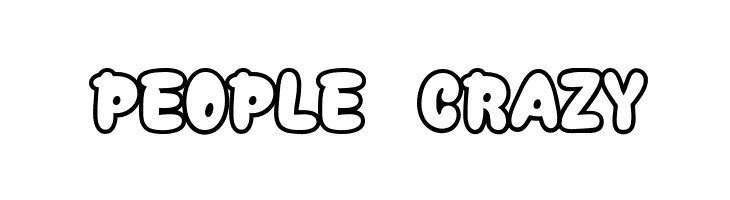
A modern, rounded font with smooth edges and high legibility.
Raider Crusader Expanded Font
Måns Grebäck
Guthen Bloots Personal Use Font
Måns Grebäck
A bold, energetic handwritten font with fluid strokes and a playful style.
DK Bygone Regular Font
Casady & Greene
A bold, hand-painted style font with a vintage, rugged appearance.
H4 Ketan Font Regular Font
Måns Grebäck
A bold, outlined font with a modern, geometric style.
.VnBook Antiqua Font
Måns Grebäck
A classic serif font with elegant strokes and a timeless appearance.
Calligraphy wet Font
Julieta Ulanovsky
A bold, brush-style font with dynamic, hand-drawn calligraphic strokes.
Snacker Comic Personal Use Only Font
A playful, bold font with a cartoonish, bubble-like style.
AGALEGA-Regular Font